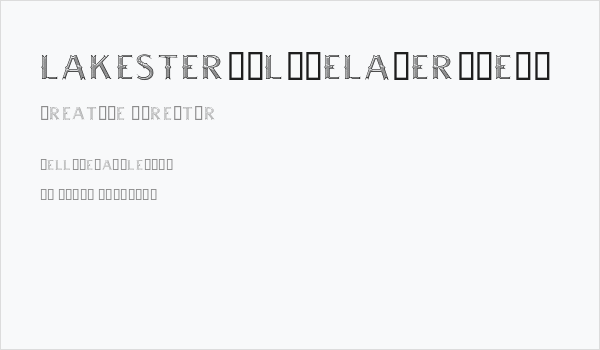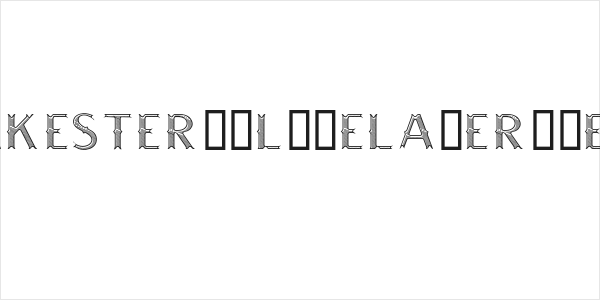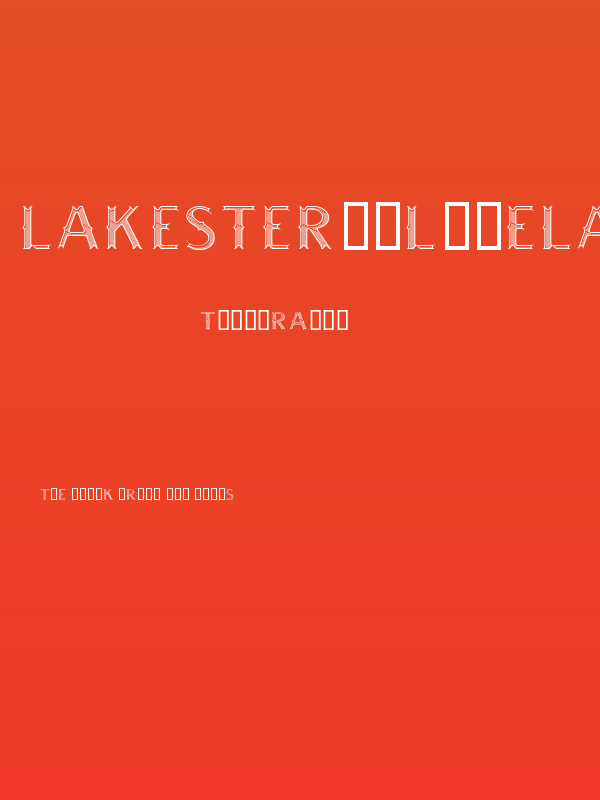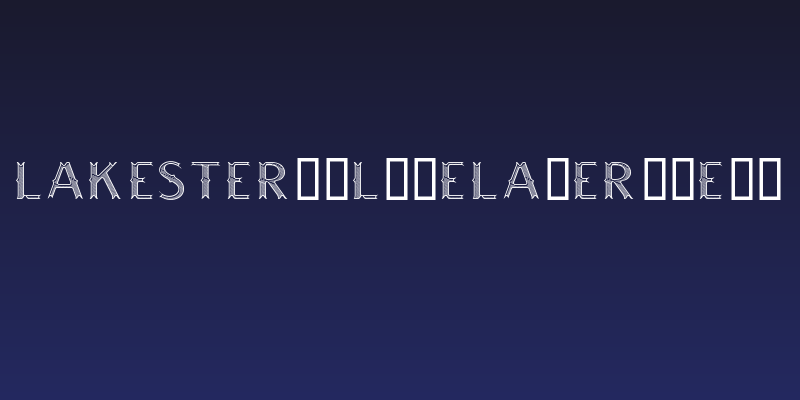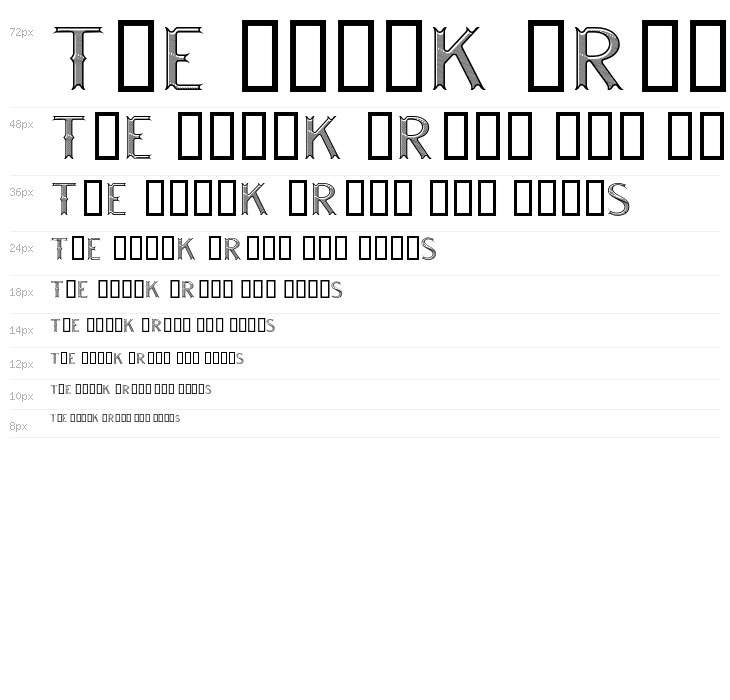
LAKESTERINLINELAYER3DEMO Font
LAKESTERINLINELAYER3DEMO Description
This font features a bold and decorative style with a three-dimensional effect, giving it a unique and eye-catching appearance. The characters have sharp, angular serifs and a distinct inline design that adds depth and complexity. The overall look is reminiscent of vintage signage or classic movie posters, making it ideal for projects that require a touch of nostalgia or a bold statement. The font's intricate details and strong presence make it suitable for headlines, logos, and other display purposes where impact is essential.
| Proposed Projects | Ideal for vintage-themed posters, logos, book covers, and branding materials that require a bold and striking appearance. |